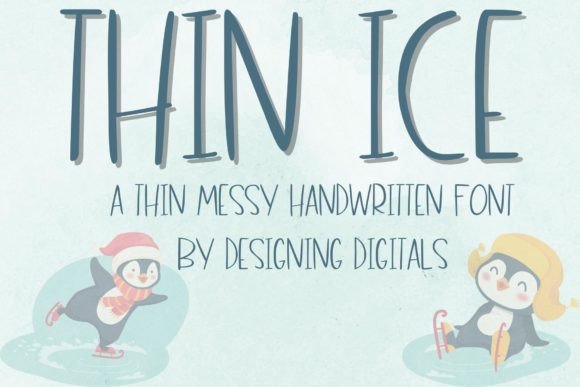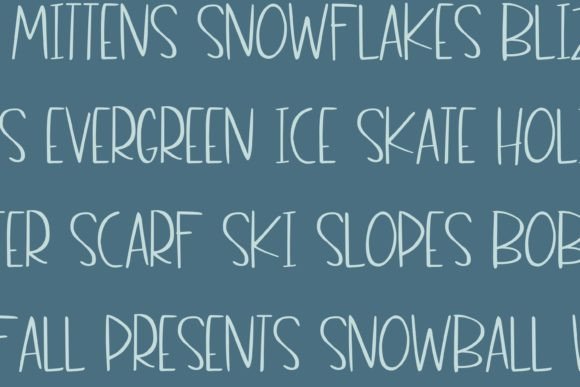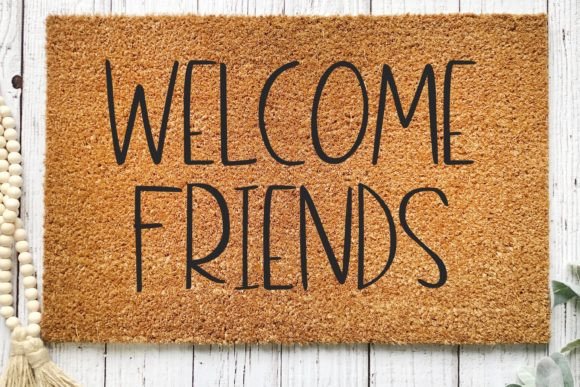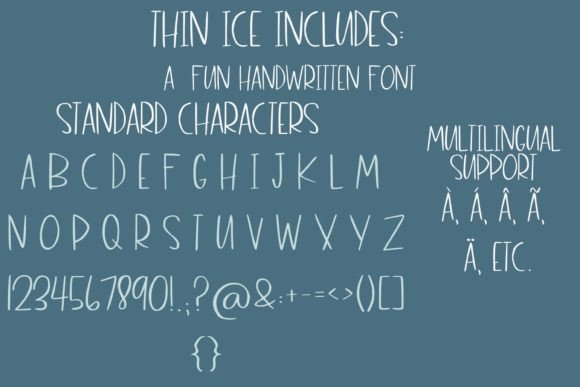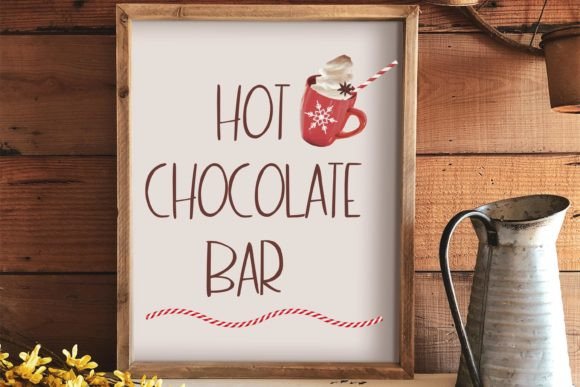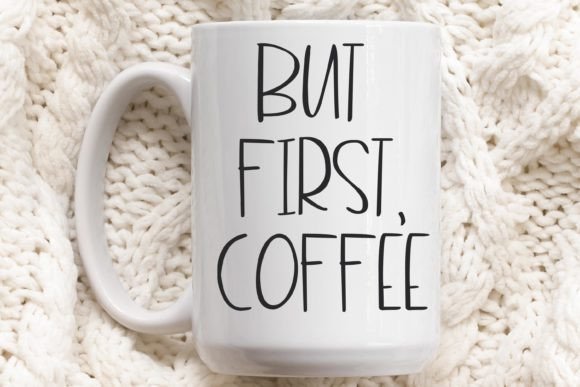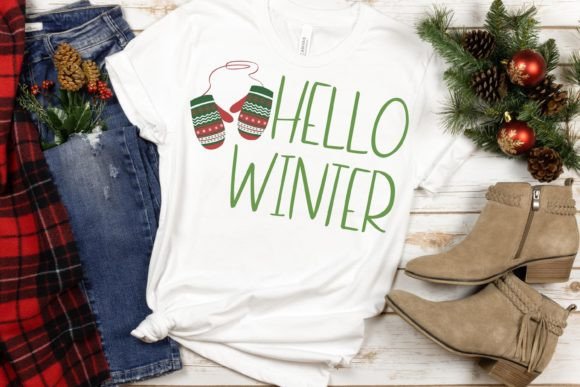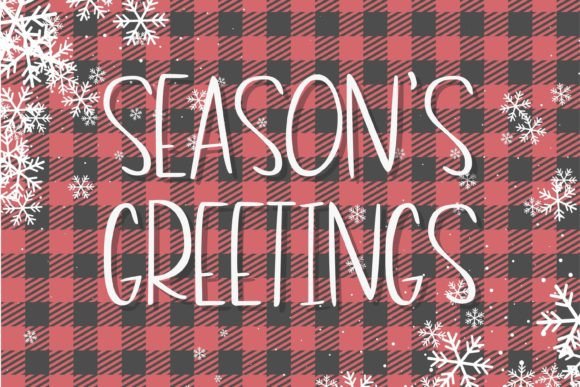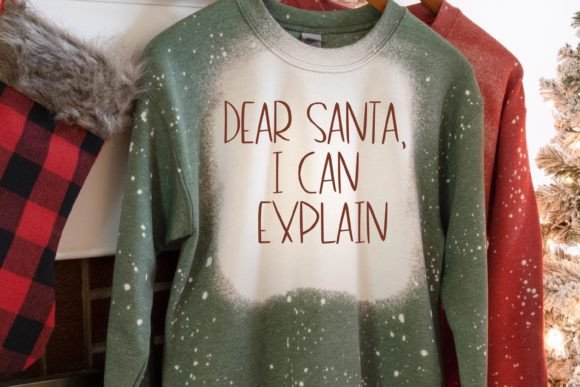
Thin Ice Font
About Thin Ice Font
**Thin Ice**: *Where Fun Meets Adorableness*
Thin Ice isn’t just a font; it’s a delightful blend of fun and adorableness meticulously designed to become your favorite go-to font for a wide range of occasions. Whether you’re working on crafts, digital design, presentations, greeting cards, or any other creative project, this handwritten font effortlessly adds a sense of playfulness and charm, making it the perfect choice for all your creative needs.
What sets Thin Ice apart is its remarkable ability to seamlessly combine fun with adorableness. The font’s carefully crafted characters exude an air of joy and authenticity, making it an ideal choice for projects that require a touch of creativity and a friendly aesthetic. Thin Ice is the font that can effortlessly enhance your creations, ensuring they stand out with a delightful sense of style and charm.
Thin Ice strikes the perfect balance between a modern aesthetic and a friendly demeanor, making it a versatile and heartwarming choice for projects that aim to engage and delight.
In crafts and DIY projects, Thin Ice adds a layer of personality and creativity, making them even more enjoyable and unique. For digital design, presentations, or any other creative endeavors, the font’s playful appeal enhances user engagement and adds a touch of whimsy. Whether you’re working on greeting cards, social media graphics, or any other visual content, Thin Ice brings an air of delightful fun and adorableness to your projects.
One of Thin Ice’s most remarkable qualities is its adaptability. It can transition seamlessly from a casual and relaxed tone to a more lively and spirited one, making it suitable for a wide range of creative applications. Its ability to evoke both fun and adorableness ensures that it remains a cherished choice for designers and creators across diverse industries.
In summary, Thin Ice is more than just a font; it’s a design asset that masterfully combines fun with adorableness. Its unique blend of playful characters and creative charm positions it as an indispensable tool for anyone seeking to infuse their creative projects with a touch of style and charm. Embrace the fun and adorableness of Thin Ice, and watch your projects come to life with joy and artistic flair, making it your favorite go-to font for every occasion!